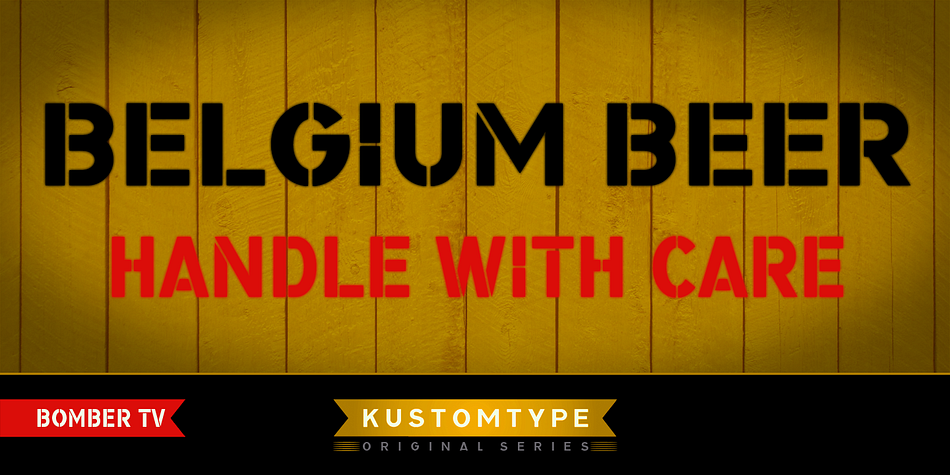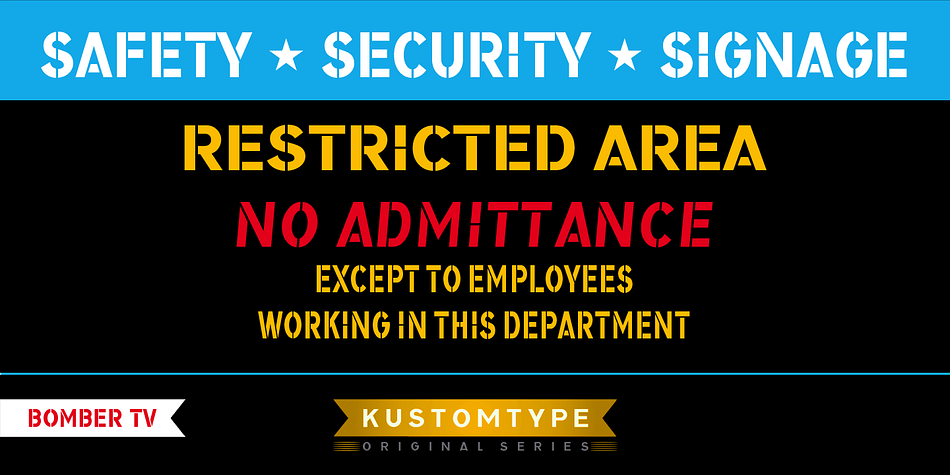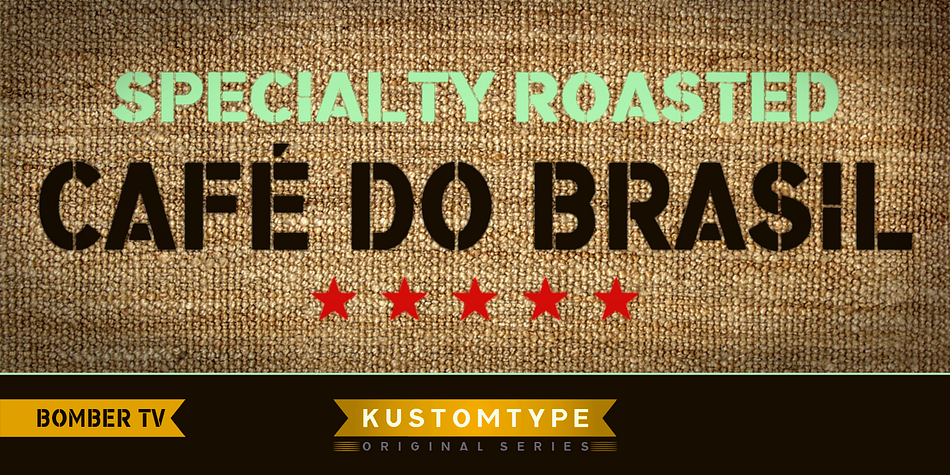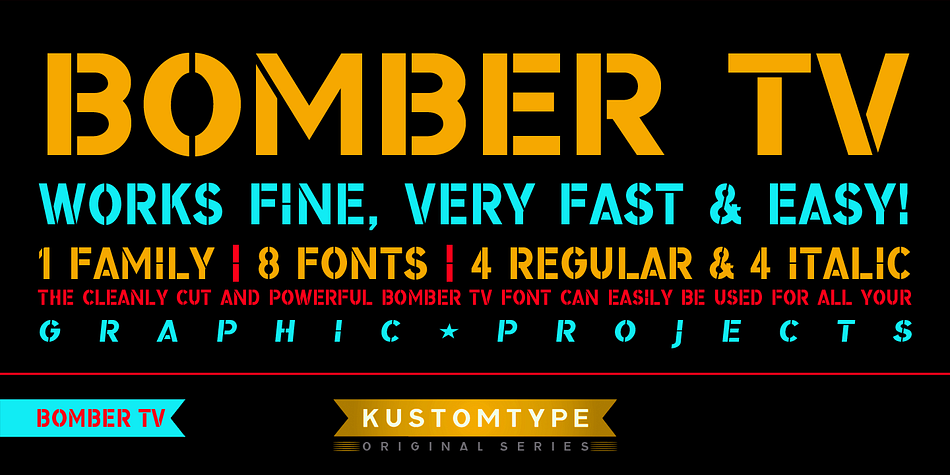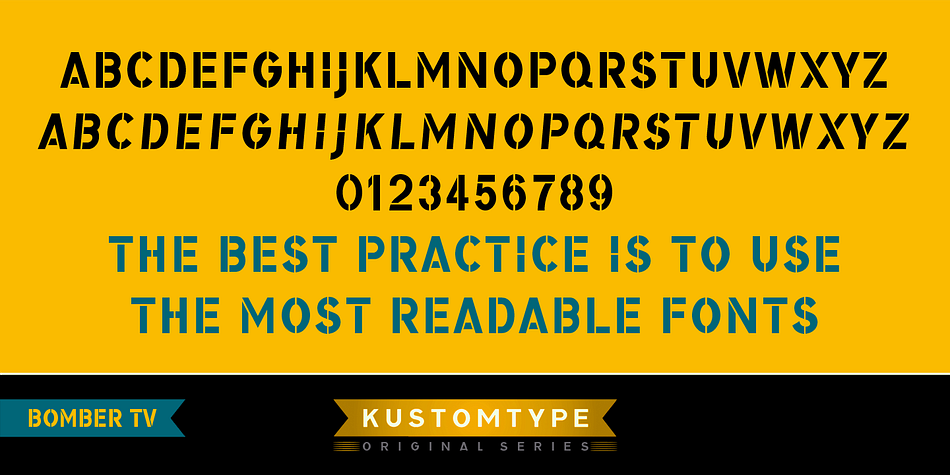
Bomber TV is a stencil font family. This typeface has eight styles and was published by Kustomtype.
I was asked by a good friend of mine to design his tattoo lettering. This fellow prefered an easy stencil with no ornament, such as swirls or loops. After some preliminary design I finally accepted the challenge and while completing the whole alphabet, the idea of creating a cool font of it occured to me. Only a few months later this new font family already contained 4 weights, every weight has a companion Italic style, punctuation, numerals and mathematical operators, as well as all accented characters.
Bomber TV is a brand-new font and all glyphs have been contemplated very carefully so that all characters match in a well-balanced and streaming way. In both shaped weights, the font suits extraordinary well for headings, slogans etc. The cleanly cut and powerful Bomber TV font can easily be used for logotype, games, prints, magazines, web, apps, packaging, posters, T-shirts, signage & design projects. The font is original and custom made by Kustomtype.